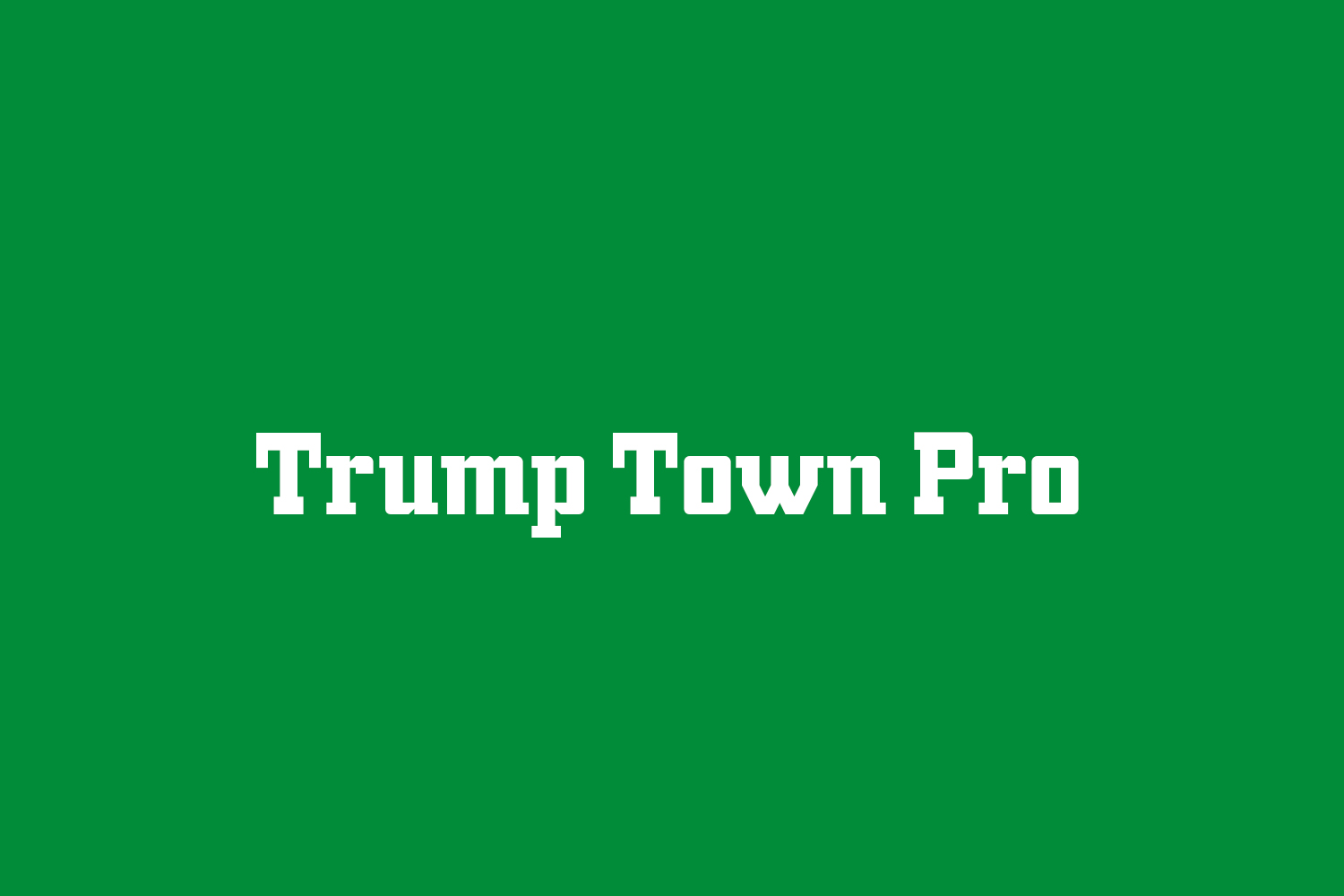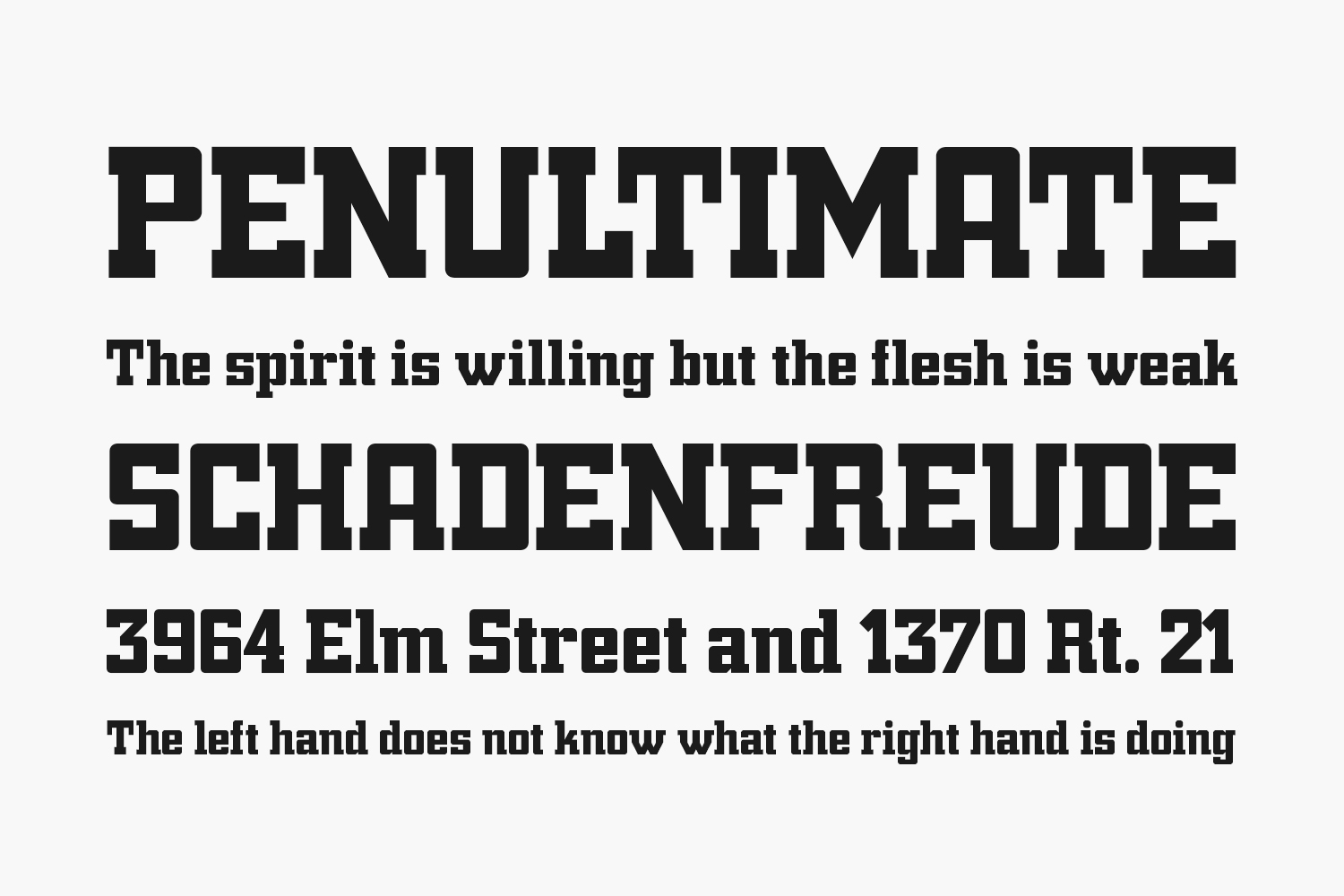
Based on and adapted from Georg Trumps classic from 1930.
Trump Town Pro Free Font was originally made with FontStruct but this Pro version have cleaned up outlines, quite a few tweaked letterforms (because of FontStructs limitations 😉 , corrected spacing, and added kerning and hinting… It has also been scaled – and some additional diacritics added.